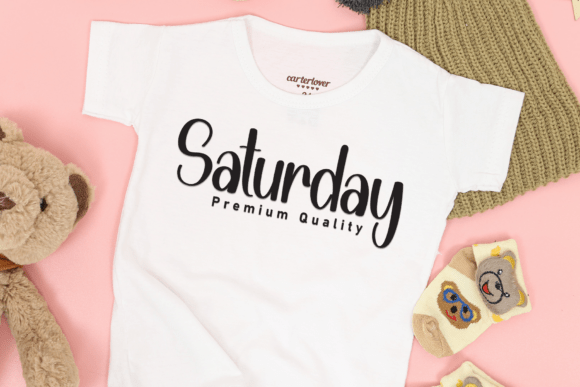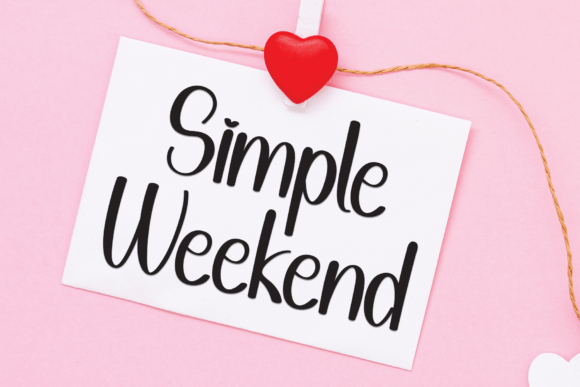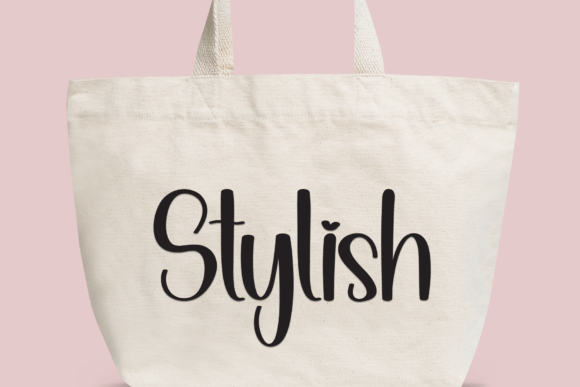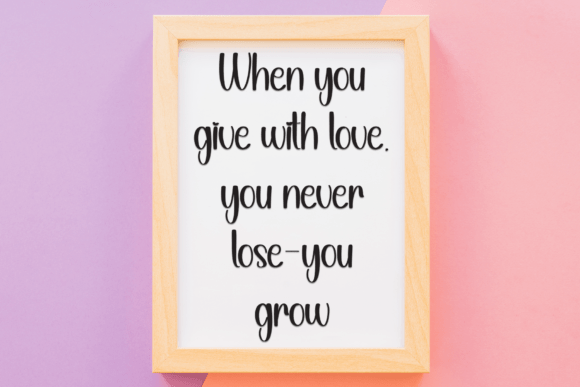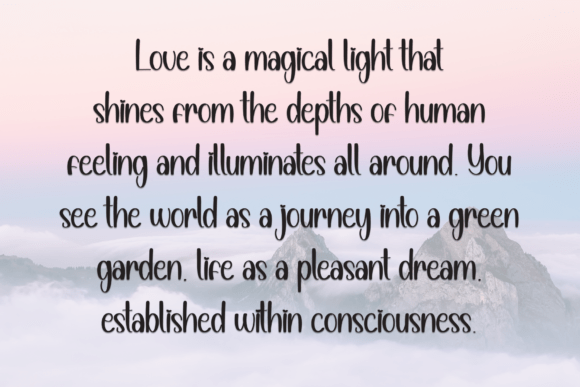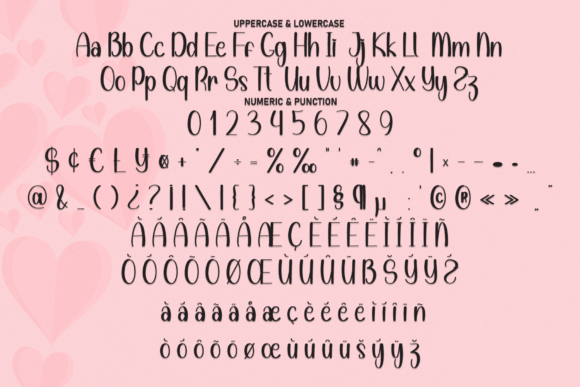
Introducing Sweet Symphony: The Ultimate Comic Valentine Font
Are you tired of using the same old fonts for your designs? Look no further! We’re thrilled to introduce “Sweet Symphony”, a stunning, artisanal display font that’s sure to capture the hearts of designers and crafters alike. This beautiful font is perfect for creating enchanting wedding invitations, heartwarming greeting cards, and any other innovative endeavour that requires a dash of delight.
The Charm of Sweet Symphony
Sweet Symphony is more than just a font – it’s an experience. Imbued with enticing allure, this font is crafted to spark groundbreaking creativity and bring a lively energy to your designs. Its unique blend of charm and depth of feeling makes it the perfect choice for anyone looking to add a personal touch to their projects. Whether you’re a seasoned designer or a crafty DIY enthusiast, Sweet Symphony is sure to inspire you to create something truly special.
One of the best things about Sweet Symphony is its versatility. This font can be used for a wide range of applications, from:
- Enchanting wedding invitations and save-the-date cards
- Heartwarming greeting cards for Valentine’s Day, anniversaries, and birthdays
- Creative branding and packaging designs
Wherever you need to add a touch of personality and whimsy, Sweet Symphony is the perfect choice.
Bringing Your Designs to Life
Sweet Symphony has the power to transform even the simplest project into something truly special. Its vibrant warmth and lively energy infuse your designs with a sense of joy and playfulness, making them impossible to ignore. Whether you’re creating a digital design or a physical craft, Sweet Symphony is sure to bring your vision to life.
What Sets Sweet Symphony Apart
So, what makes Sweet Symphony so unique? Here are just a few things that set it apart from other fonts:
- Hand-crafted with love and attention to detail
- Unique blend of charm and depth of feeling
- Perfect for adding a personal touch to your designs
- Versatile and adaptable for a wide range of applications
- Easy to read and beautifully legible
Tips for Using Sweet Symphony
Here are a few tips for getting the most out of Sweet Symphony:
- Use it as a headline font to add a touch of personality to your designs
- Pair it with a simpler font for body text to create a beautiful contrast